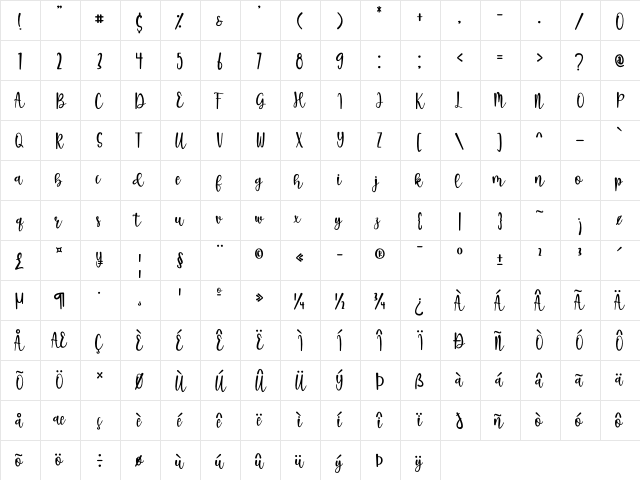
Sugar Bitter Regular
| Designer | Arief Tri Sulistiyono |
Design Context for Sugar Bitter Typeface
Sugar Bitter is a composed and adaptable typeface that performs quietly and consistently across a wide range of design contexts.